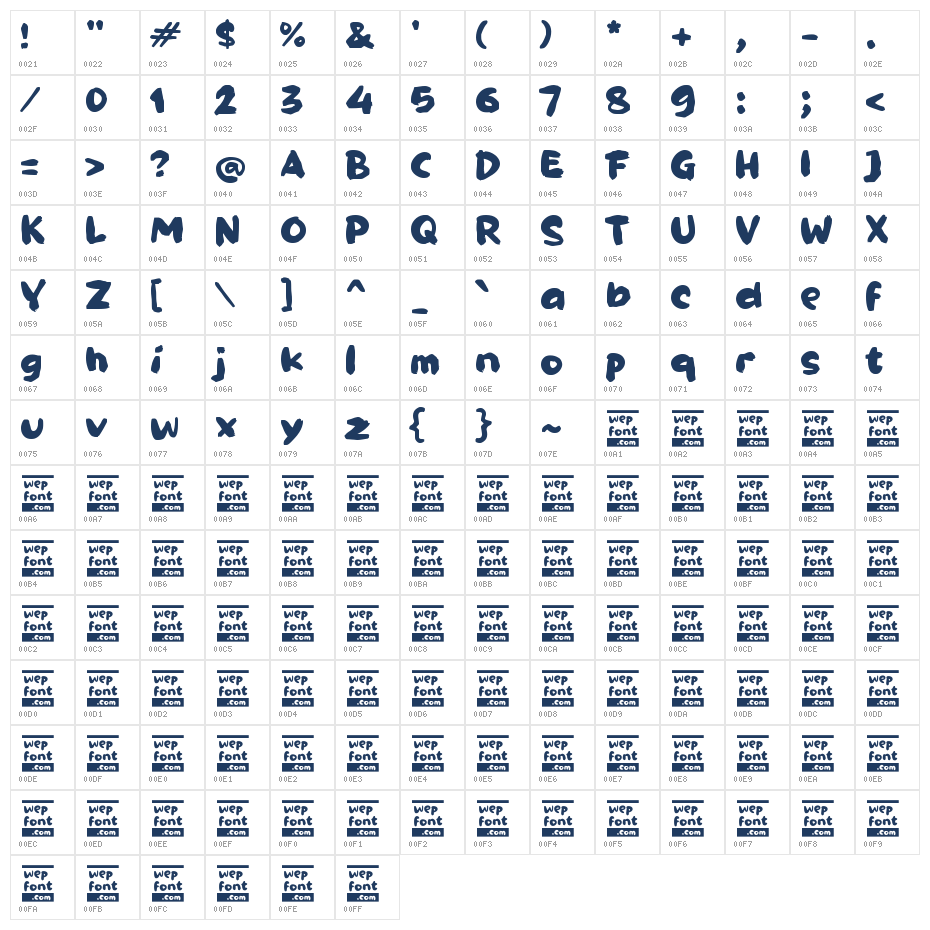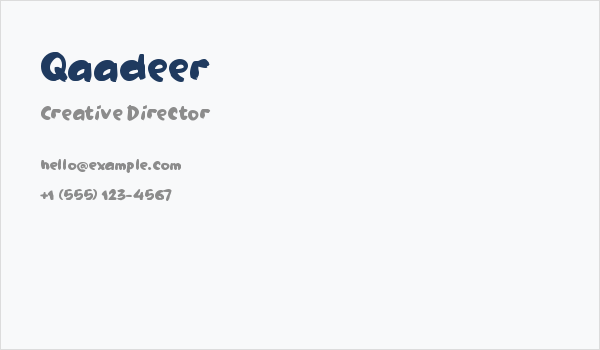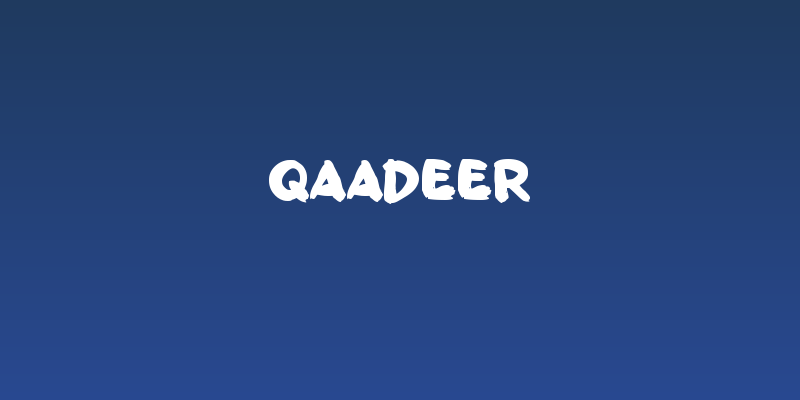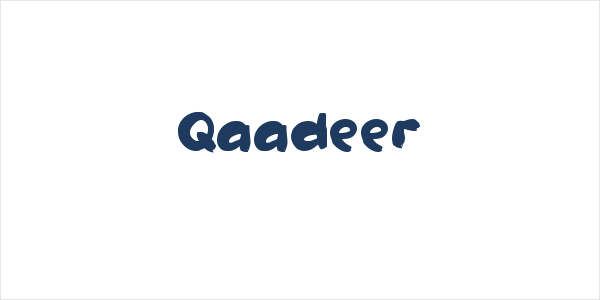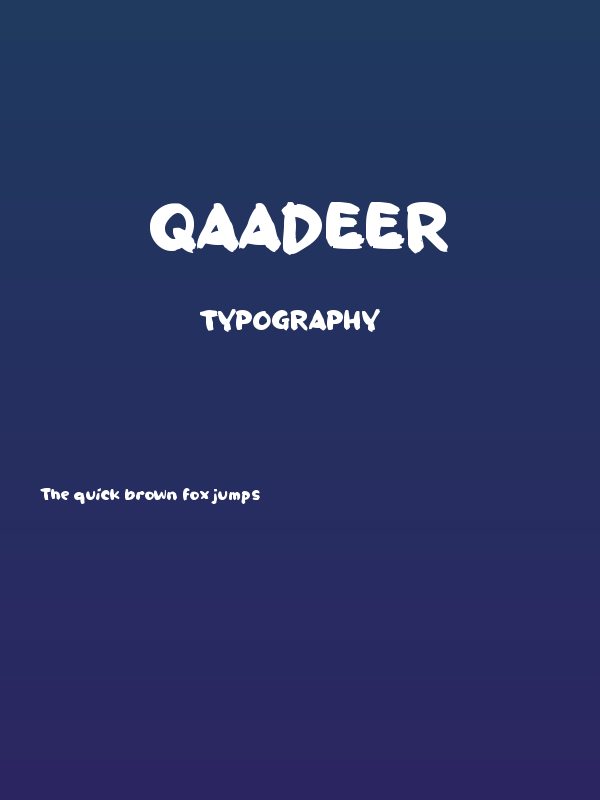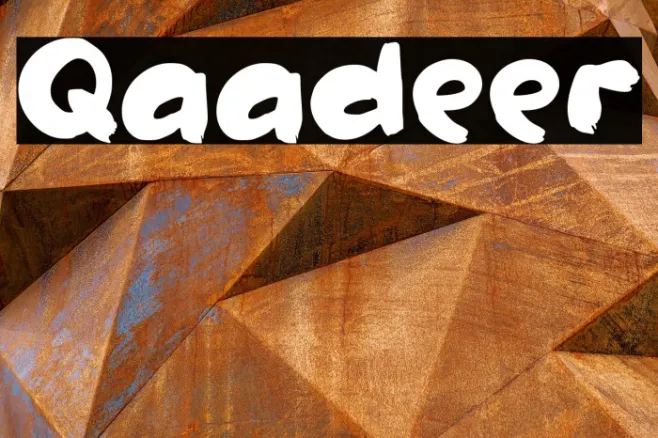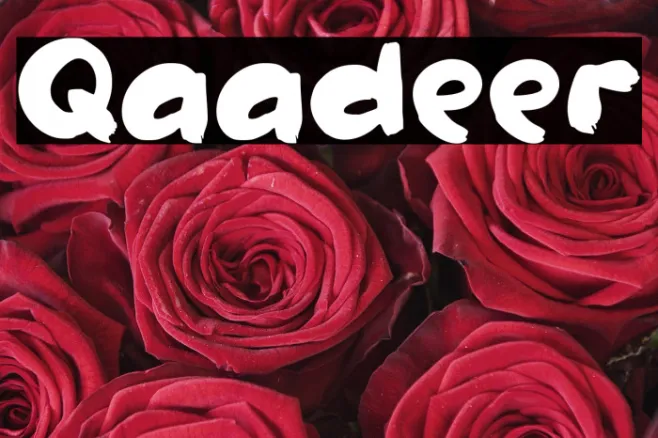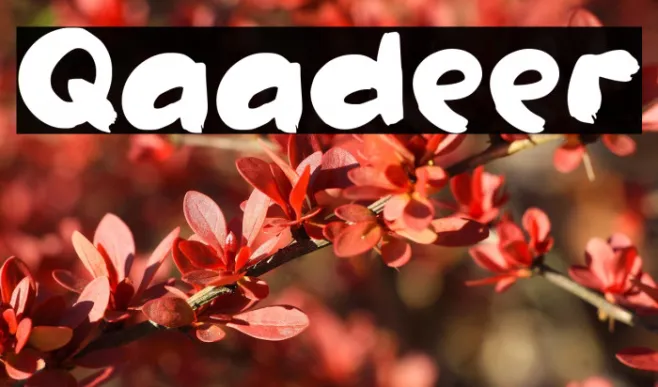
Qaadeer Font
Qaadeer Description
A bold, playful, and rounded handwritten style font with a casual and friendly appearance.
QAADEER UPPERCASE
QAADEER LOWERCASE
QAADEER OTHER CHARS
| Overall Style | Casual, Playful, Friendly |
| Use Case | Headlines, Logos, Posters, Children's materials |